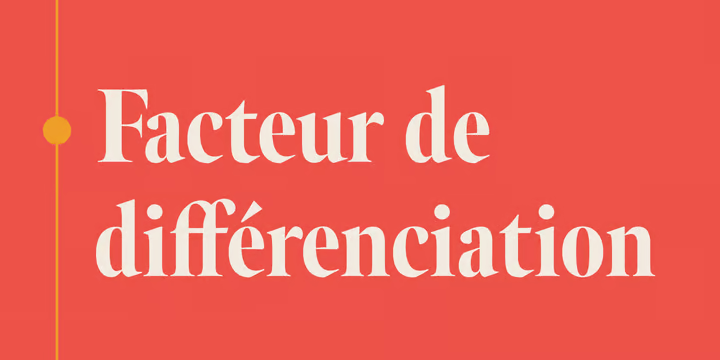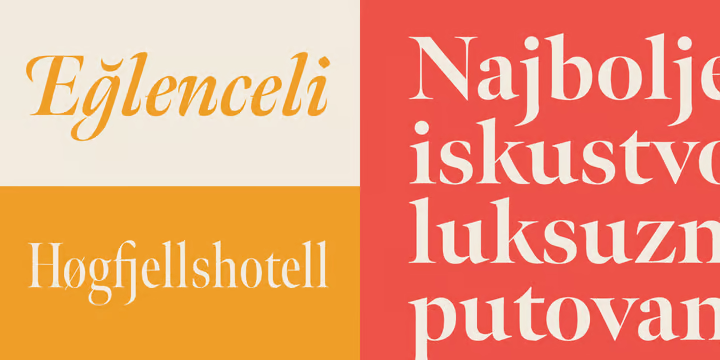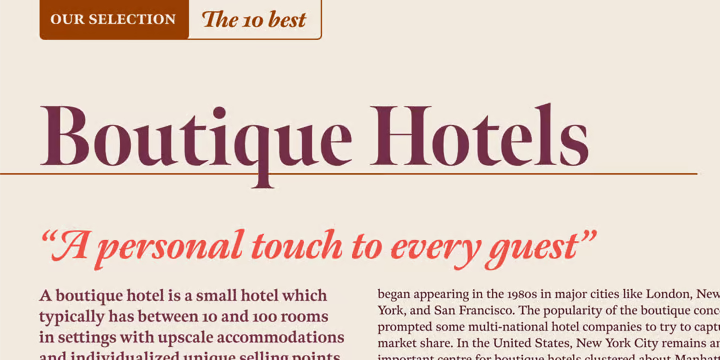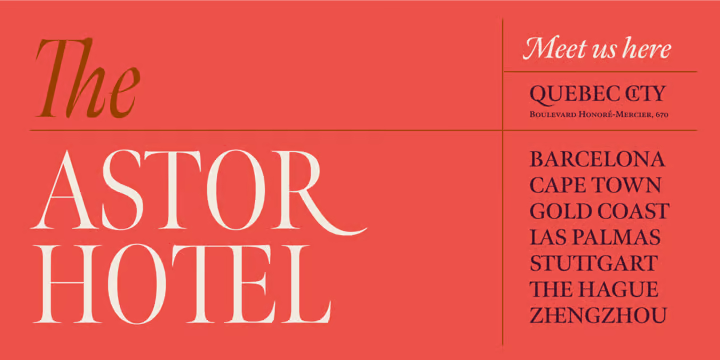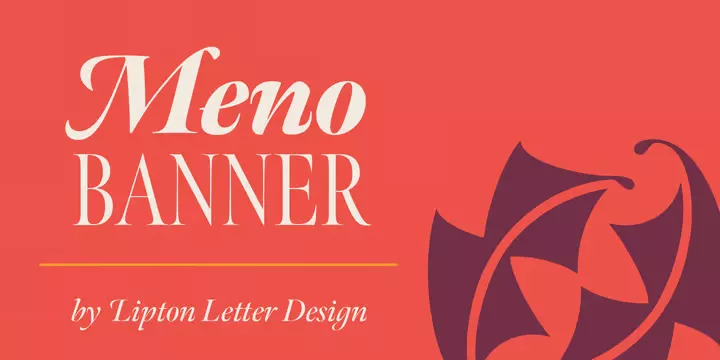
Meno Banner Font Family
Richard Lipton designed Meno in 1994 as a modest yet elegant workhorse serif family in seven styles. In 2016, he expanded this spirited oldstyle into a 78–style superfamily. The romans gain their energy from French baroque forms cut late in the 16th century by Robert Granjon, the italics from Dirk Voskens’ work in 17th-century Amsterdam. Meno consists of three carefully drawn optical sizes—Text, Display, and Banner, with Condensed and Extra Condensed widths added to the latter two cuts. Steadfast in text settings, Meno is replete with alternate forms, swashes, and other enhancements that showcase Lipton’s masterful calligraphic hand. The series offers a complete solution for achieving high-end editorial typography.
Meno Banner Font Family is a Serif Fonts font that brings a professional and versatile look to your projects. Richard Lipton designed Meno in 1994 as a modest yet elegant workhorse serif family in seven styles.